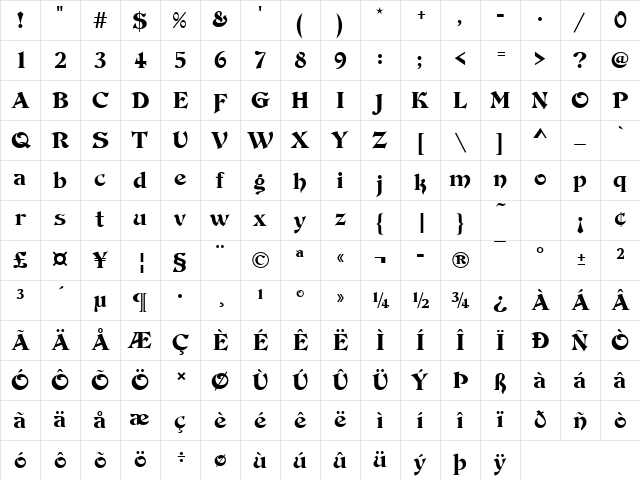
DeVinneOrn Regular
Design Context for DeVinneOrn
DeVinneOrn is a composed and adaptable typeface that performs quietly and consistently across a wide range of design contexts.